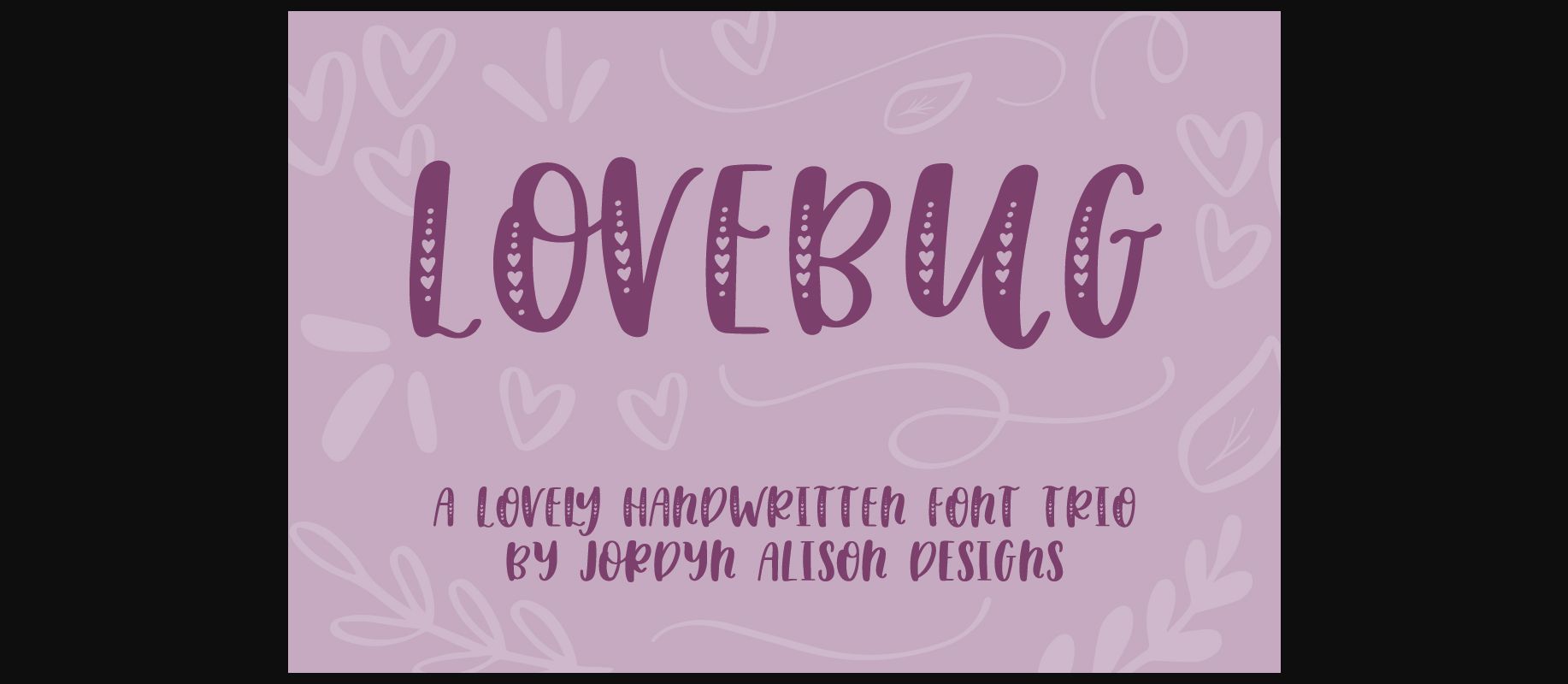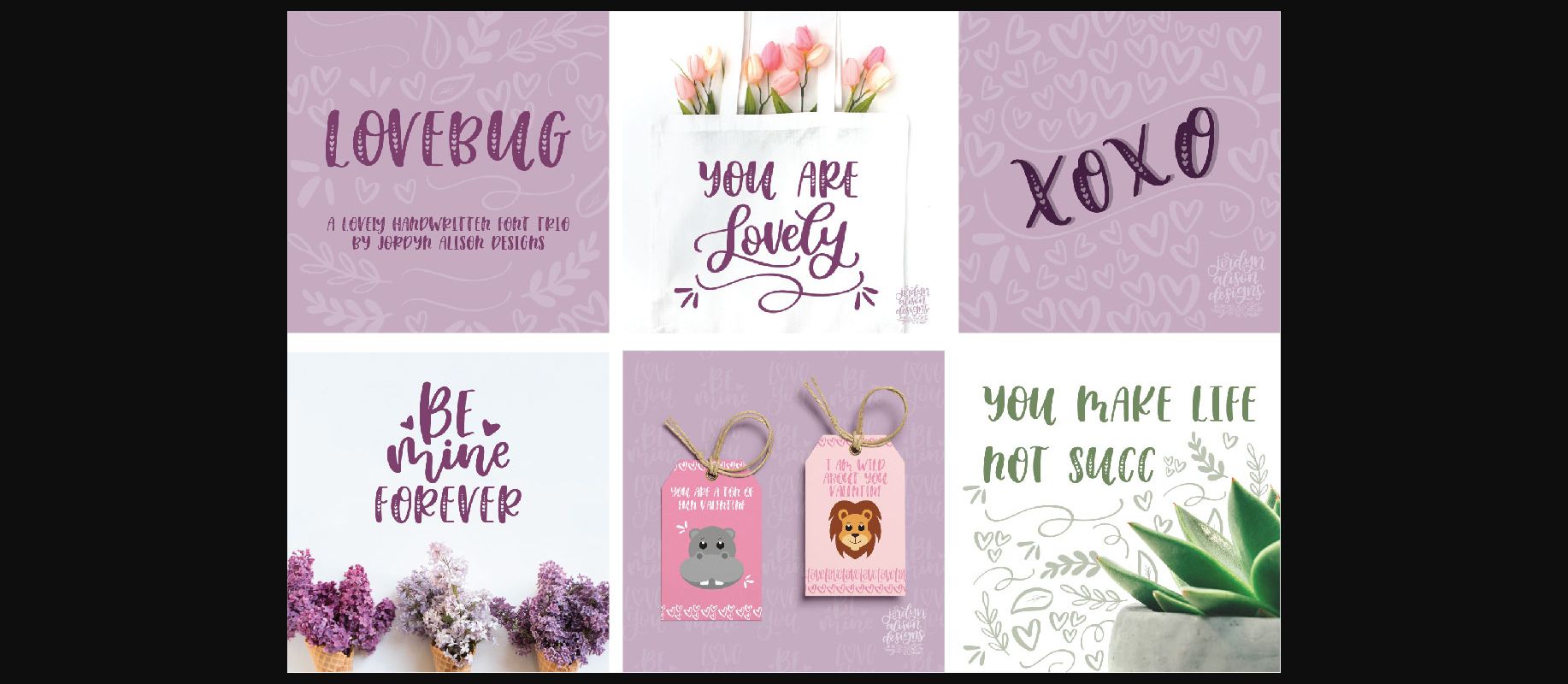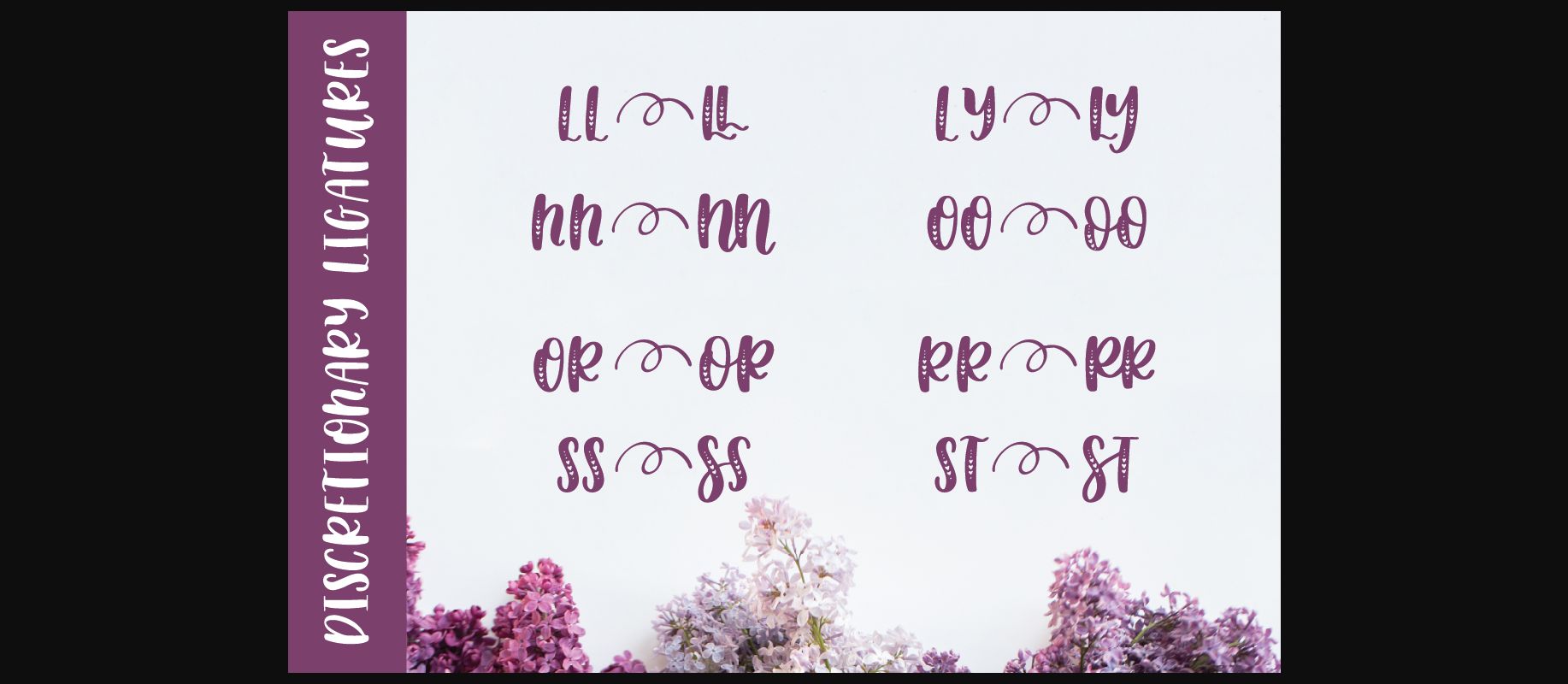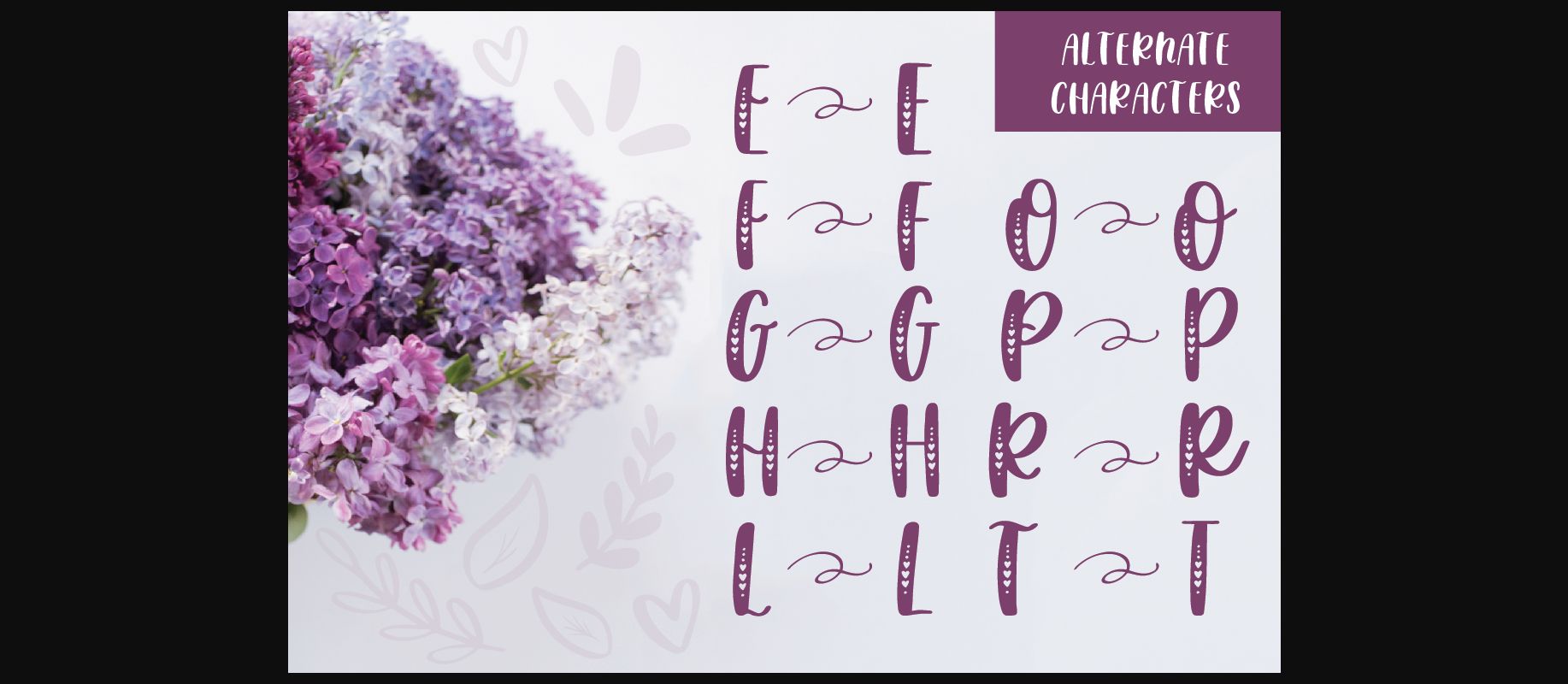
About Lovebug Font
Lovebug is a fun handwritten font trio that includes a regular solid font, the hearts font, and a symbols font. Perfect for Valentine’s Day or any romantic design project.